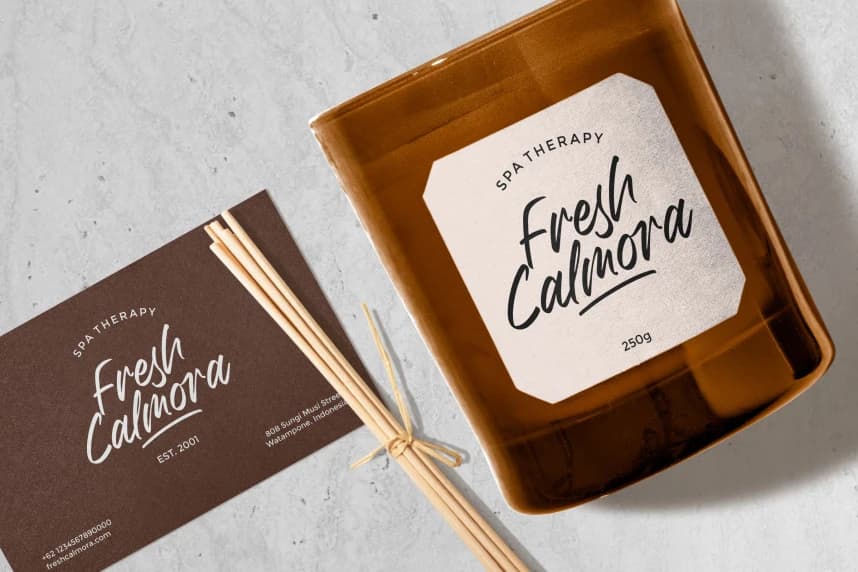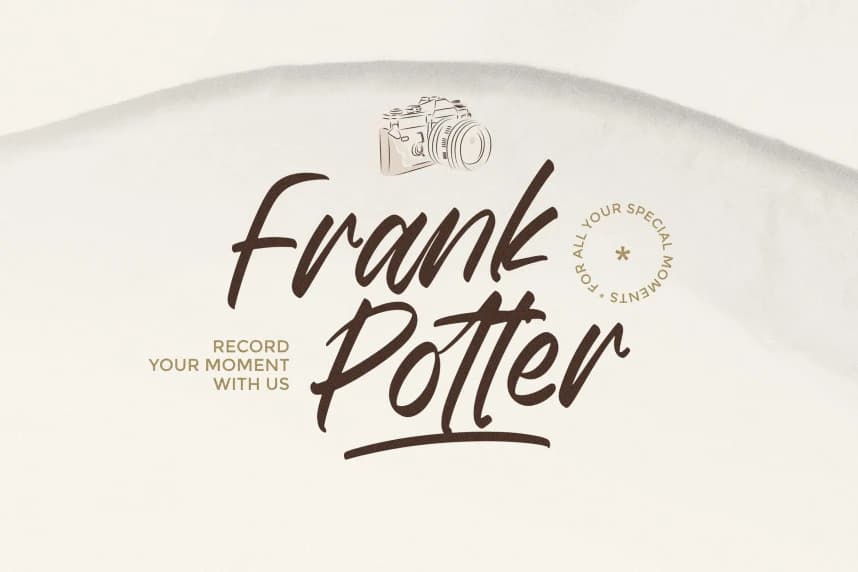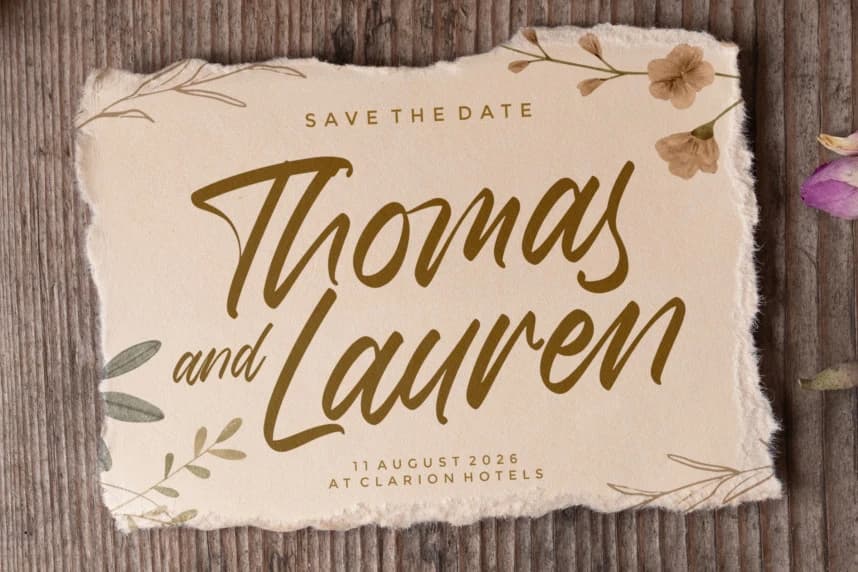
Wolenta Skyline Font
Wolenta Skyline Font is a lovely handwritten script font that combines elegance with a natural, flowing rhythm. Its smooth curves and well-balanced strokes create a soft yet confident appearance, making it perfect for designs that aim to feel warm, refined, and visually appealing.